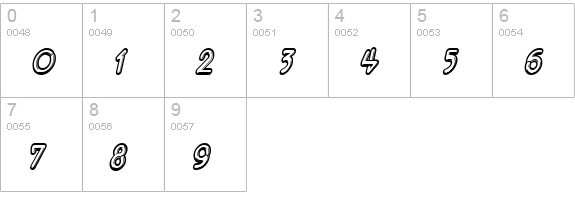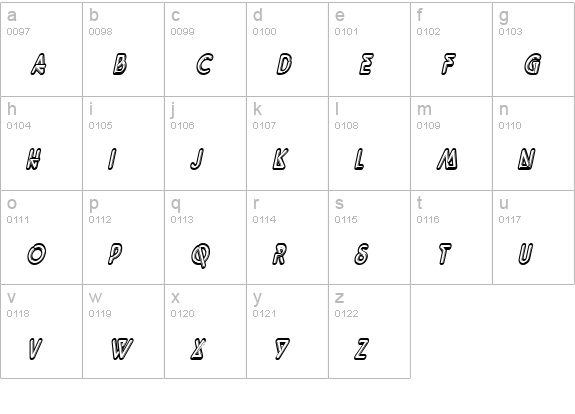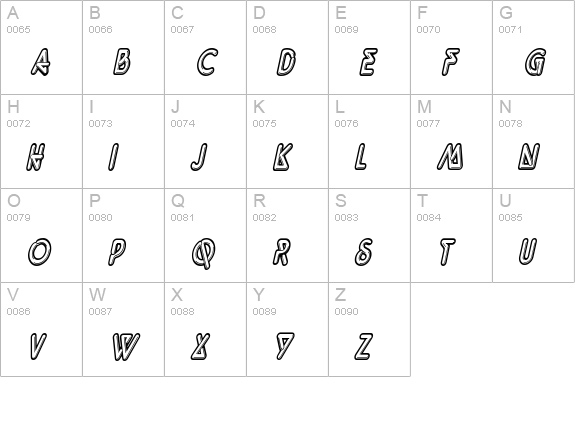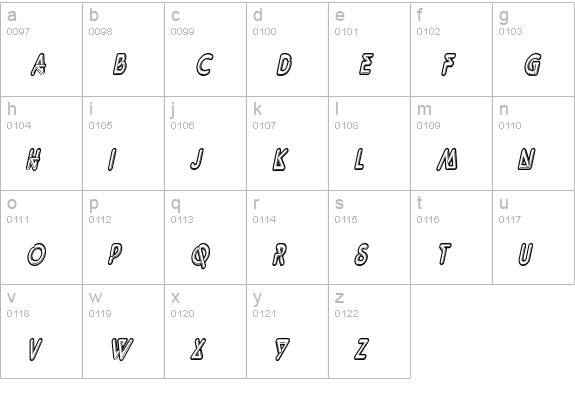
Neonz-Condensed Italic is a distinctive, condensed-width, italic variant in the Neonz typeface family \xE2\x80\x94 well suited to design and typography projects.
Introducing Neonz-Condensed Italic font, a modern and stylish typeface perfect for adding a touch of sophistication to your design projects. Its sleek and slender design exudes elegance and class, making it ideal for use in headings, logos, and branding materials. The italic style adds a dynamic and energetic flair to your text, making it stand out from the crowd. What's even better is that Neonz-Condensed Italic font is available for free download at FontsMarket.com. That's right, you can enhance your designs with this striking font without having to spend a penny. Don't miss out on this opportunity to elevate your creative projects with Neonz-Condensed Italic font - download it now and let your creativity shine!